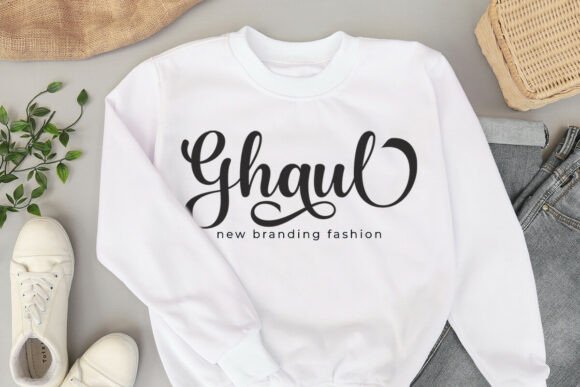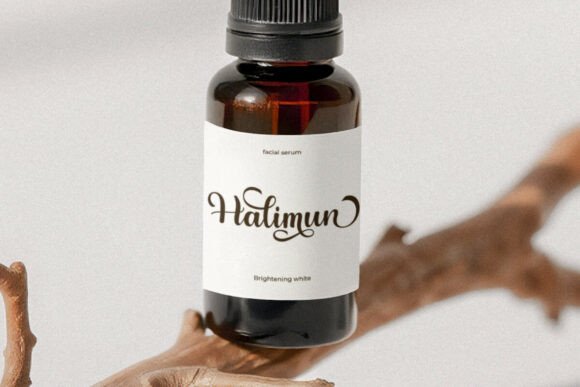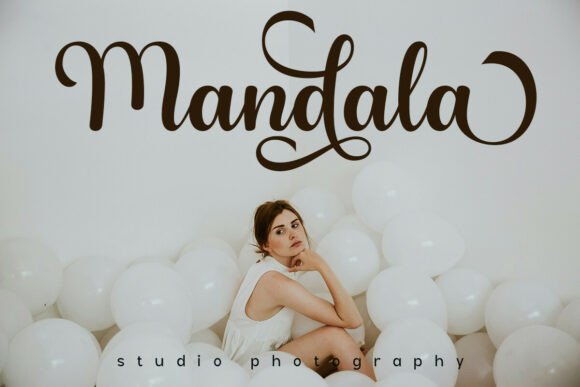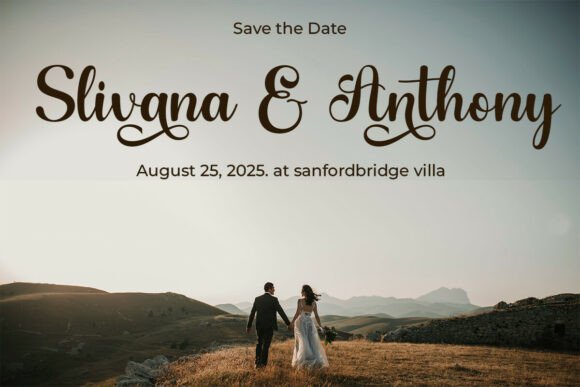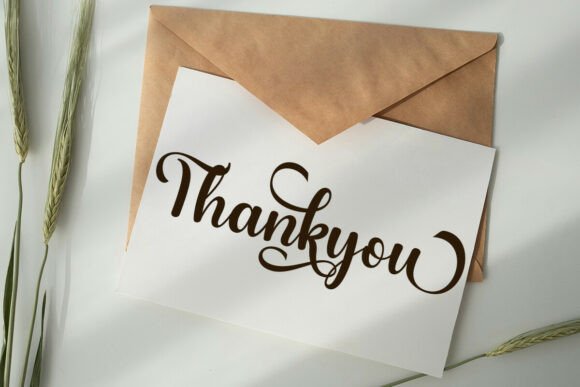
The Power of Black Simple: Elevating Your Designs with Elegance and Flair
I’ll never forget the time I was working on a wedding invitation project, and my client asked for a font that exuded sophistication and romance. I scoured the internet, tried countless fonts, but nothing seemed quite right. That was until I stumbled upon Black Simple, a stylish bold script font that effortlessly merges elegance with a touch of charm. In this article, I’ll share my experience with Black Simple, its features, and how to make the most of it in your designs.
An Honest Review of Black Simple
• ✨ Elegant and flowing letterforms with dramatic loops and swashes
• ✅ High legibility, even at smaller sizes
• ✅ Versatile character set, including uppercase and lowercase letters
• ✅ Bold weight for maximum visibility and impact
While Black Simple is an exceptional font, there are a few things to keep in mind:
• ⚠️ Limited use of italics, which may not be suitable for all designs
• 🤔 May require some adjustments for optimal spacing and kerning
The Story Behind Black Simple
Black Simple was designed with the intention of creating a font that would bring a sense of elegance and sophistication to any design project. Its creator drew inspiration from classic calligraphy and modern typography, aiming to craft a font that would be both timeless and trendy. The result is a font that exudes confidence and style, perfect for designers, crafters, and creative hobbyists.
What is the best use for Black Simple? Black Simple is ideal for branding, invitations, packaging, social media graphics, and wedding designs.
Is Black Simple suitable for body text? While Black Simple is legible, its bold weight makes it more suitable for headlines and statement pieces.
Does Black Simple support OpenType features? Yes, Black Simple supports OpenType features, including swashes, stylistic alternates, and more.
In conclusion, Black Simple is a stunning font that can elevate your designs with its elegant and flowing letterforms. With its versatility, legibility, and bold weight, it’s perfect for a range of projects. By understanding its features and limitations, you can make the most of Black Simple and create stunning designs that leave a lasting impression.